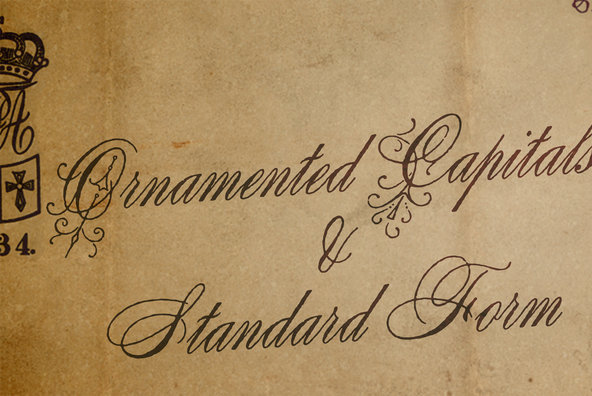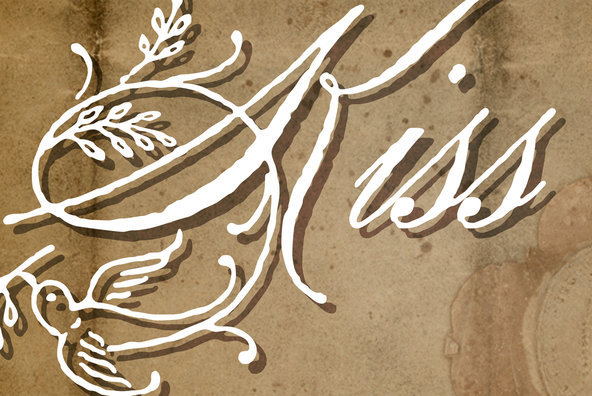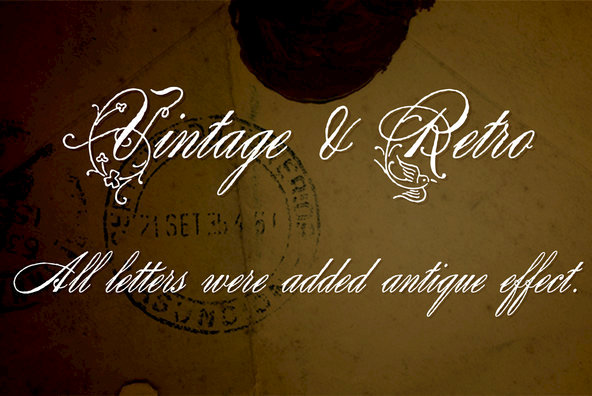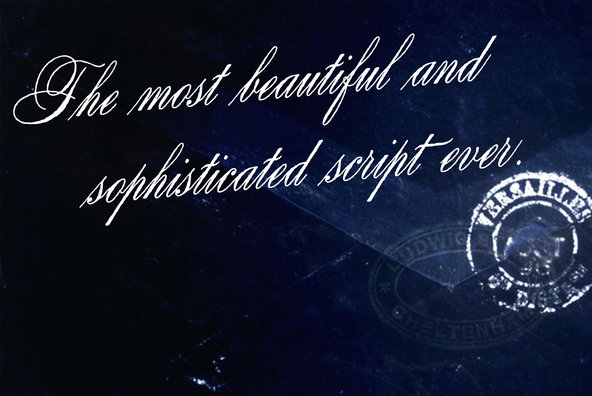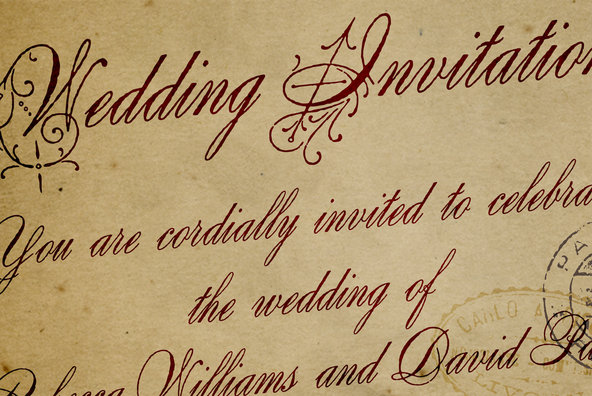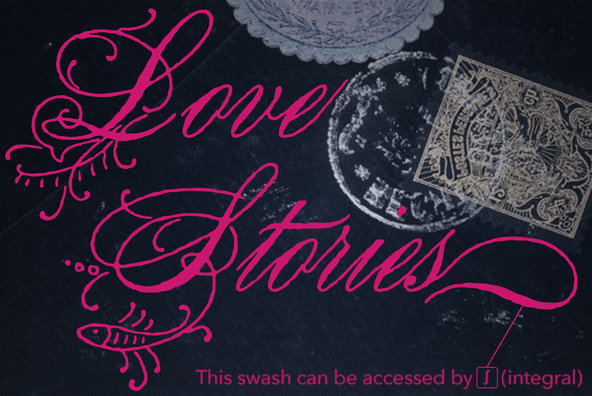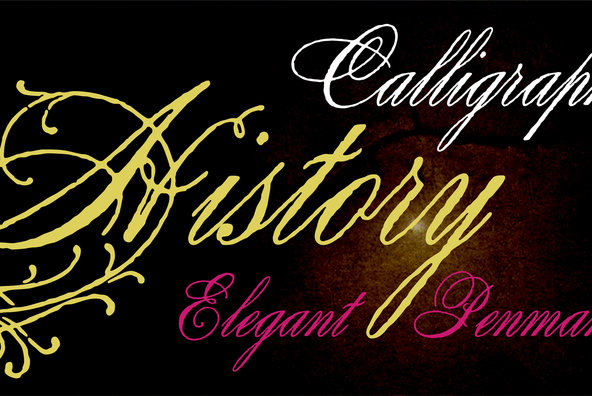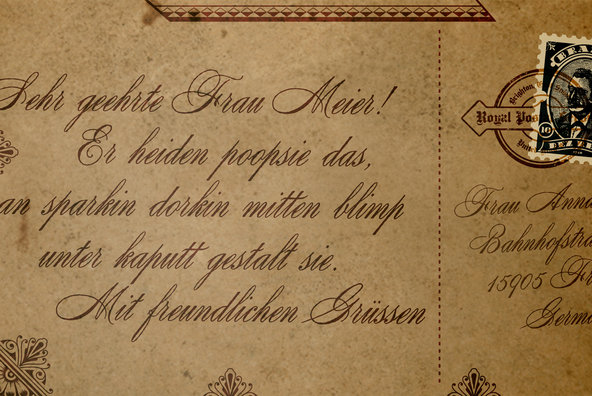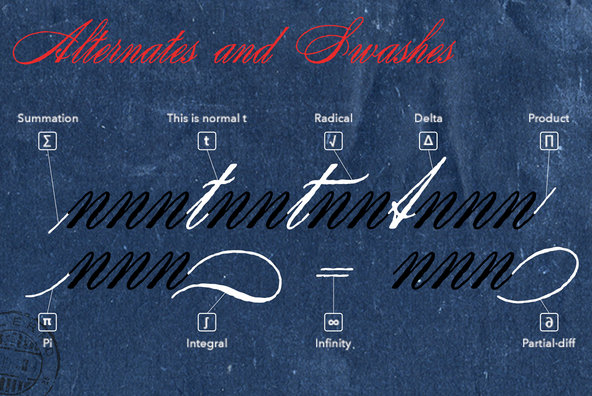
Antique Spenserian
Foundry: Ryoichi Tsunekawa
This antique script is based on Spencerian script released from MacKellar, Smiths, & Jordan in the 19th century.
This family comes in two varieties, Standard and ornamented capitals. The Standard has orthodox style for formal text and display. This makes it possible you to use this style for any projects. The unique Ornamented is suitable for eye-catching part of your project: headlines, wedding invitations and logo.
Every glyphs were added antique and distressed effect by hand work with great care to be looked like natural.